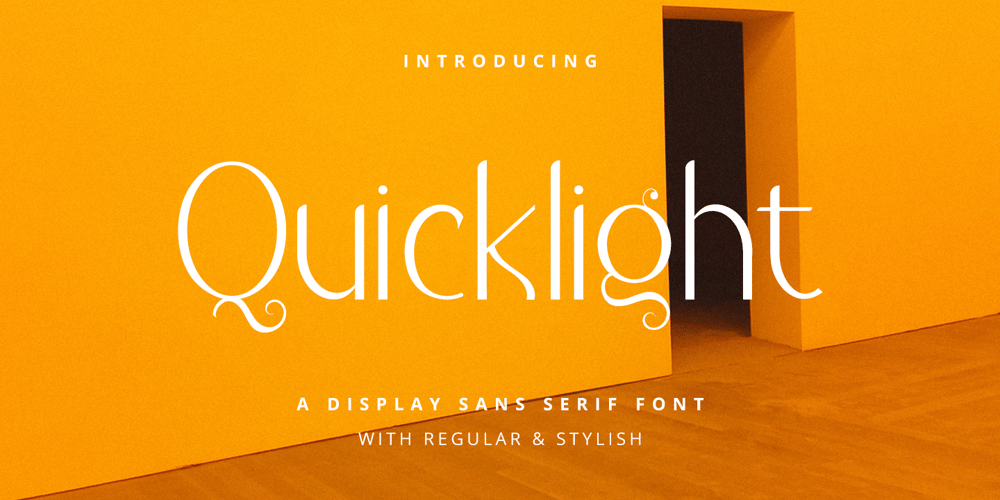
Quicklight Font Family was designed by Hayinah and published by Rockboys Studio. Quicklight contains 1 styles and family package options. Quicklight is a stylish and clean sans serif font. It has an elegant and modern look that can be used for logos, branding, invitations, stationery, wedding designs, social media posts, and much more!